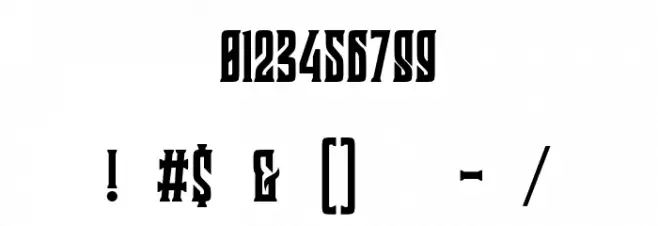
CalliocaPersonalUse-Regular Font
CalliocaPersonalUse-Regular Description
This font exhibits a bold and striking design with a strong presence. The characters are crafted with sharp, angular edges and a consistent thickness throughout, giving it a robust and authoritative appearance. The uppercase letters are particularly prominent, with a uniform height and width that convey stability and strength. The numbers and special characters maintain the same bold style, ensuring a cohesive look across all elements. This font's unique style makes it ideal for projects that require a commanding and impactful visual statement.
A bold, angular font with a strong, authoritative presence from Regular fonts.
- Proposed Projects: Ideal for logos, posters, and headlines that need a bold and impactful design.